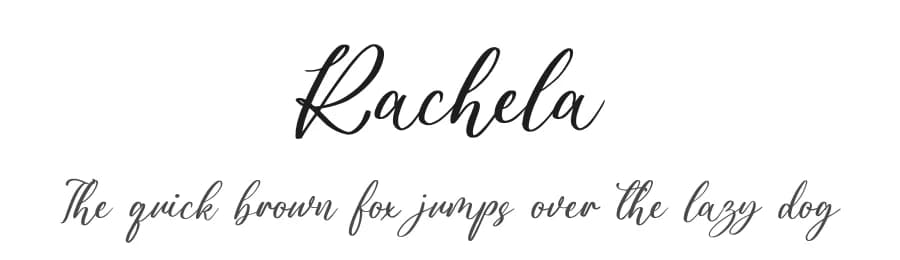
About Rachela Font
Fatma Studio
Rachela Specifications
| Font Family | Rachela |
| Full Name | Rachela |
| Glyph Count | 340 glyphs |
| PostScript Name | Rachela |
| Designer | Fatmawati |
Rachela supports 257 languages.
Rachela Font is a script font that shines as a display or heading face. Pair it with a clean sans-serif or serif font for body text β the contrast creates a clear hierarchy while the two styles stay balanced and easy to read.
Rachela Font